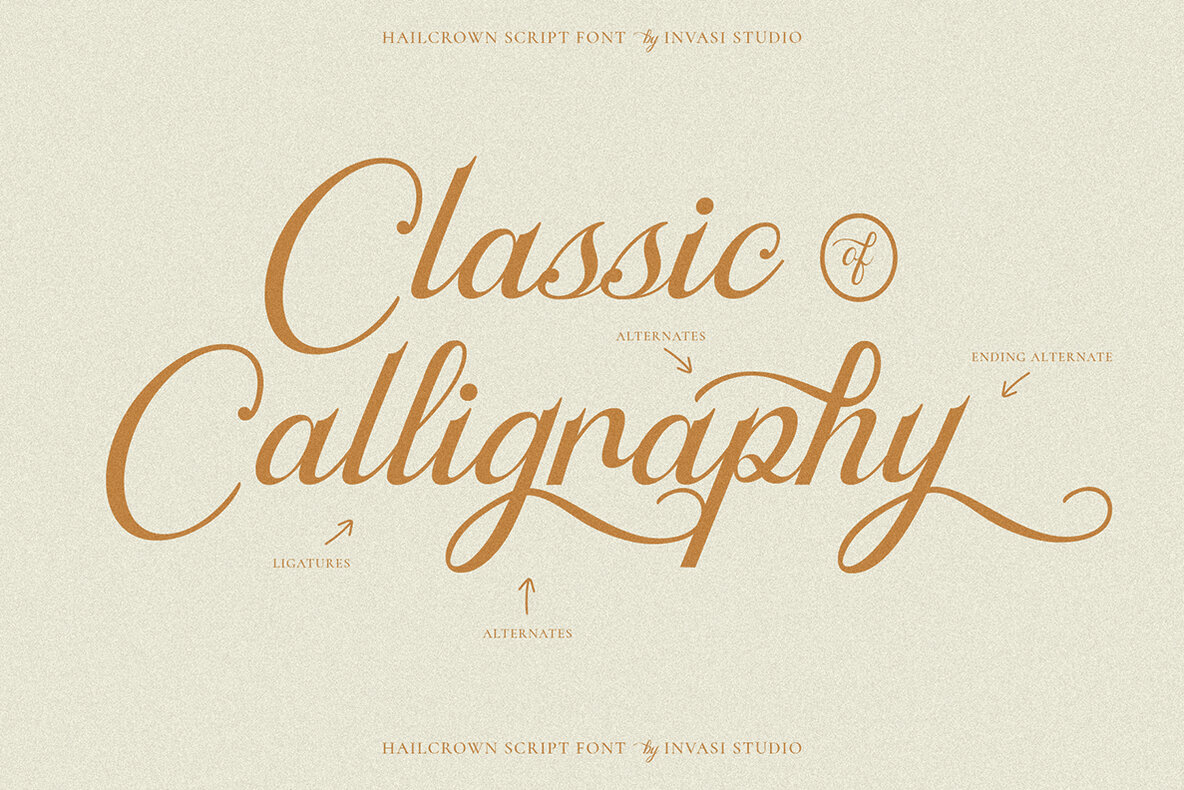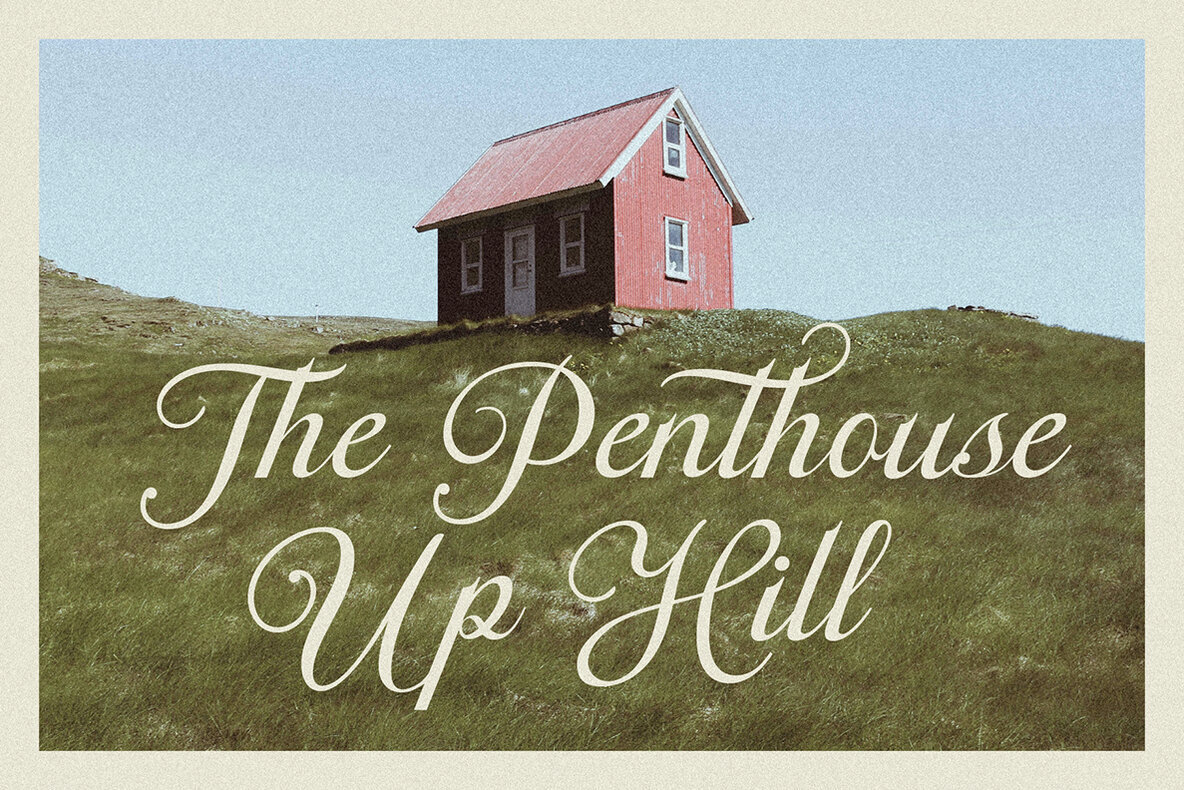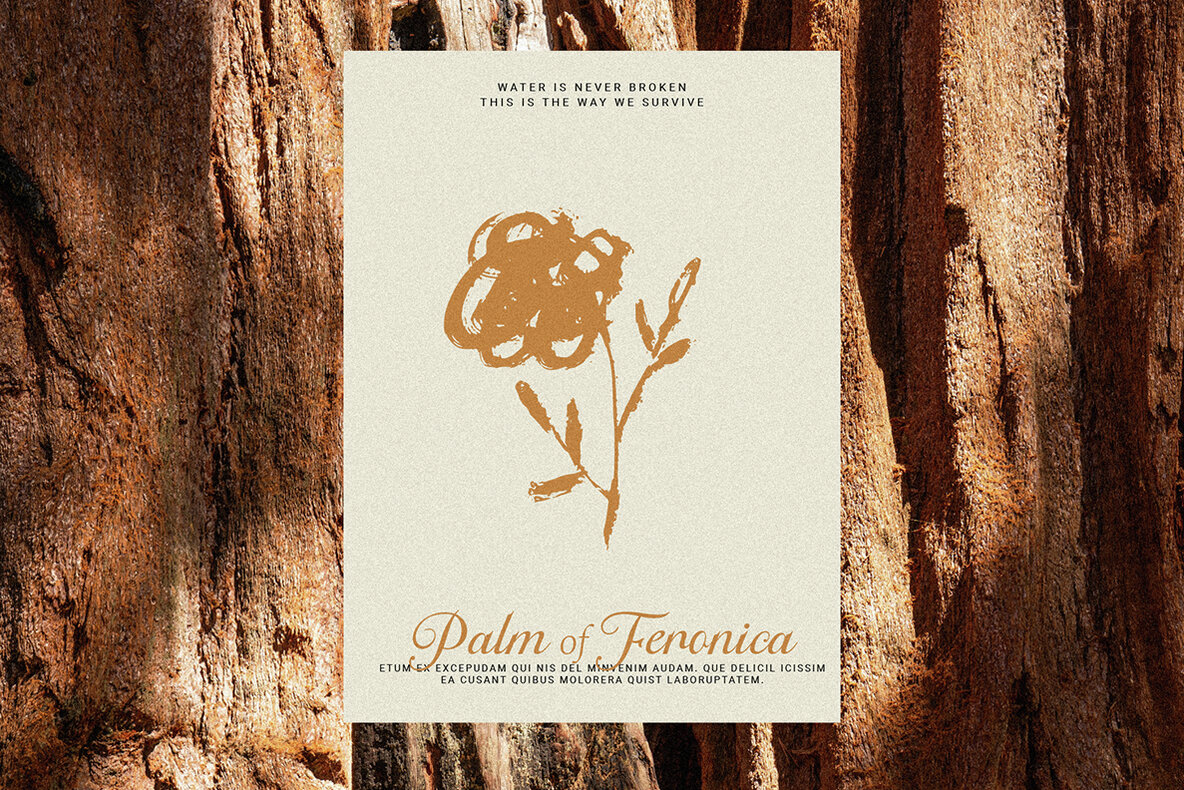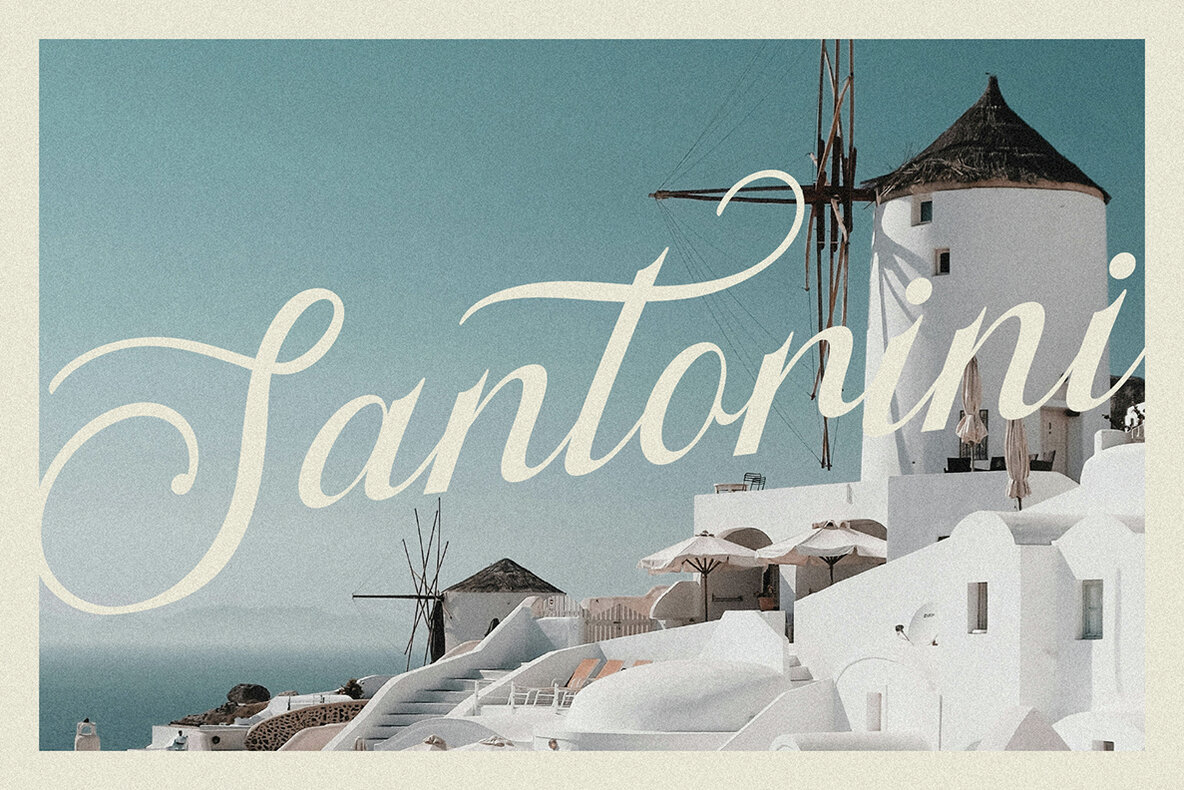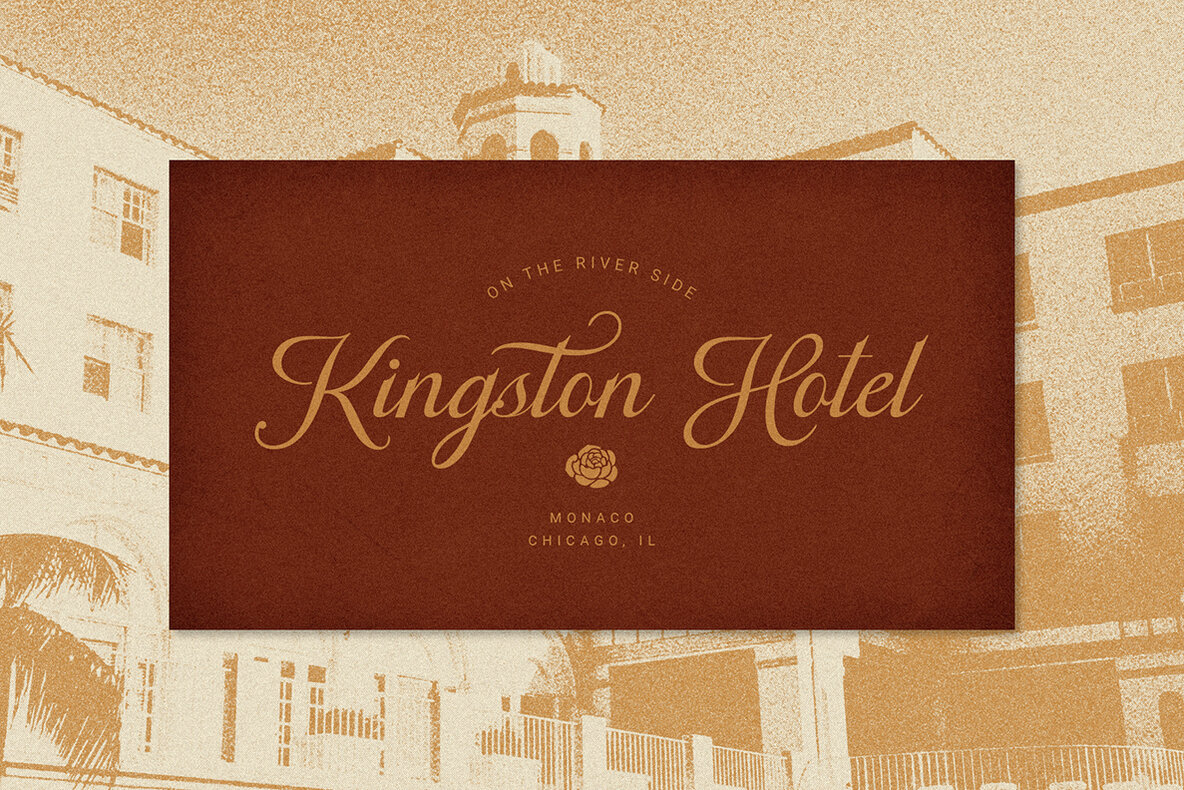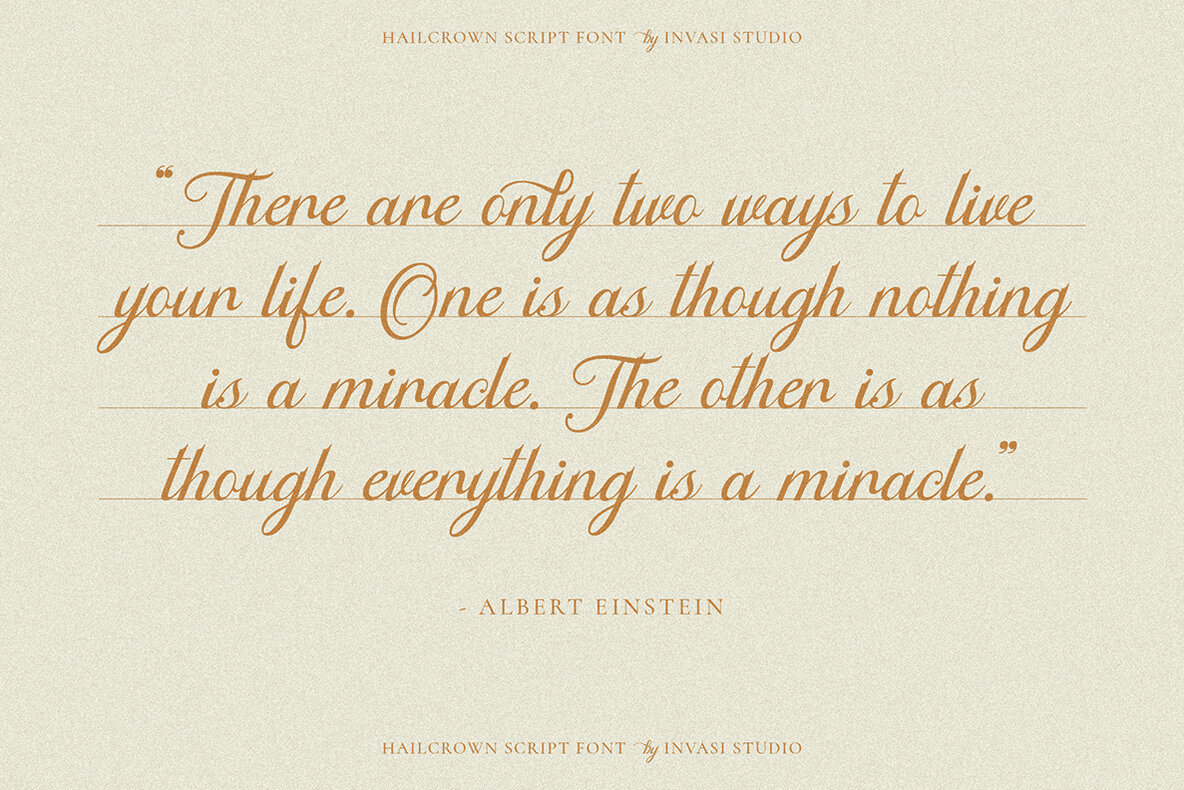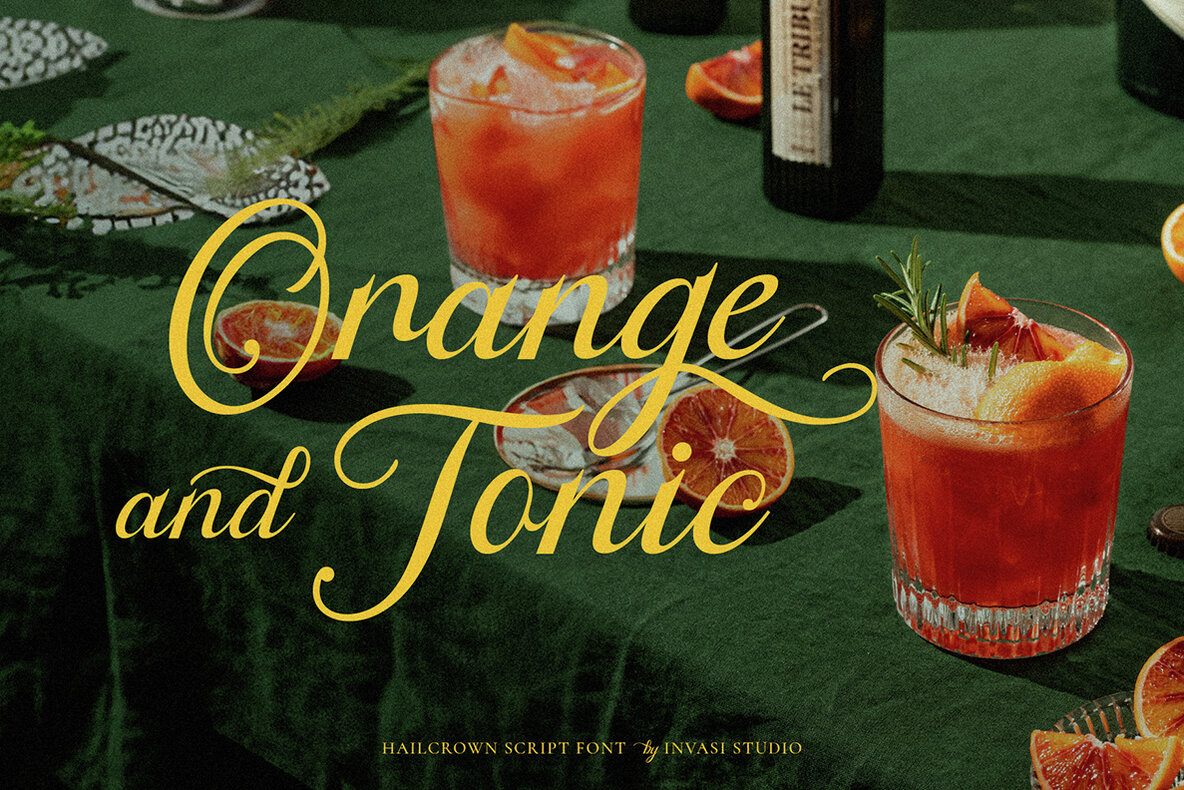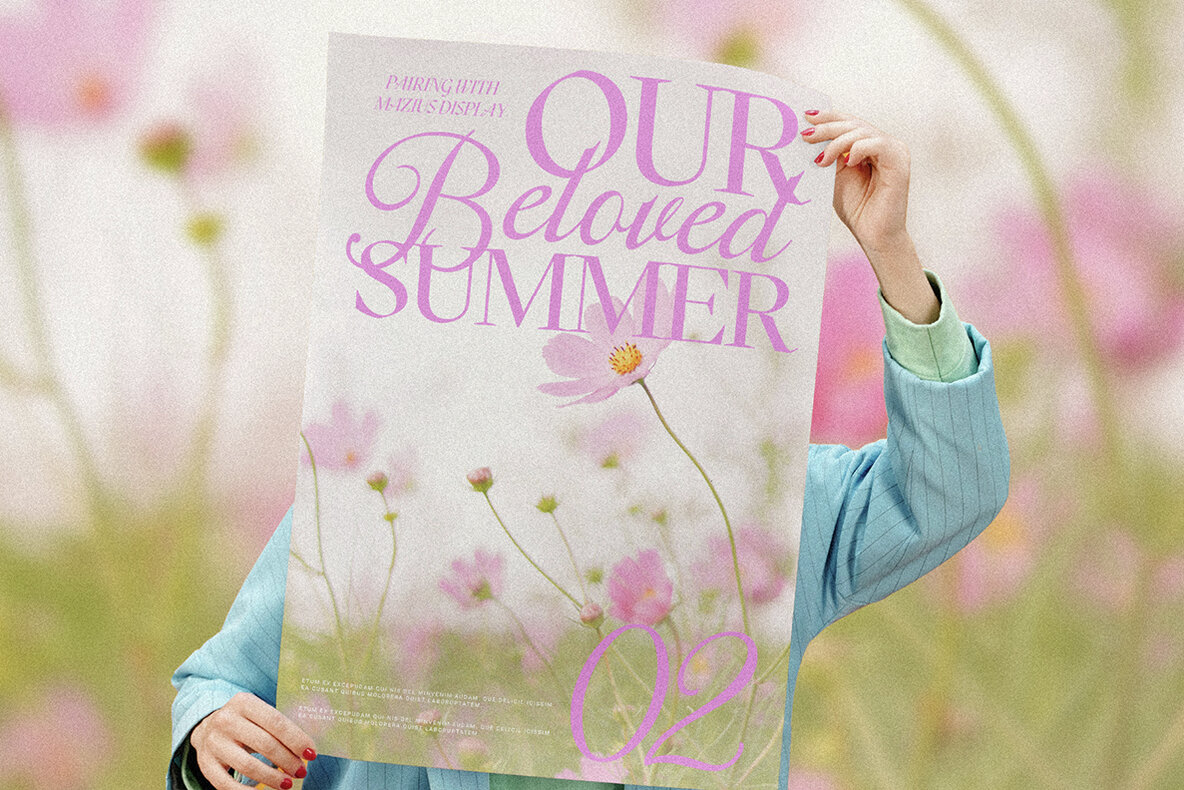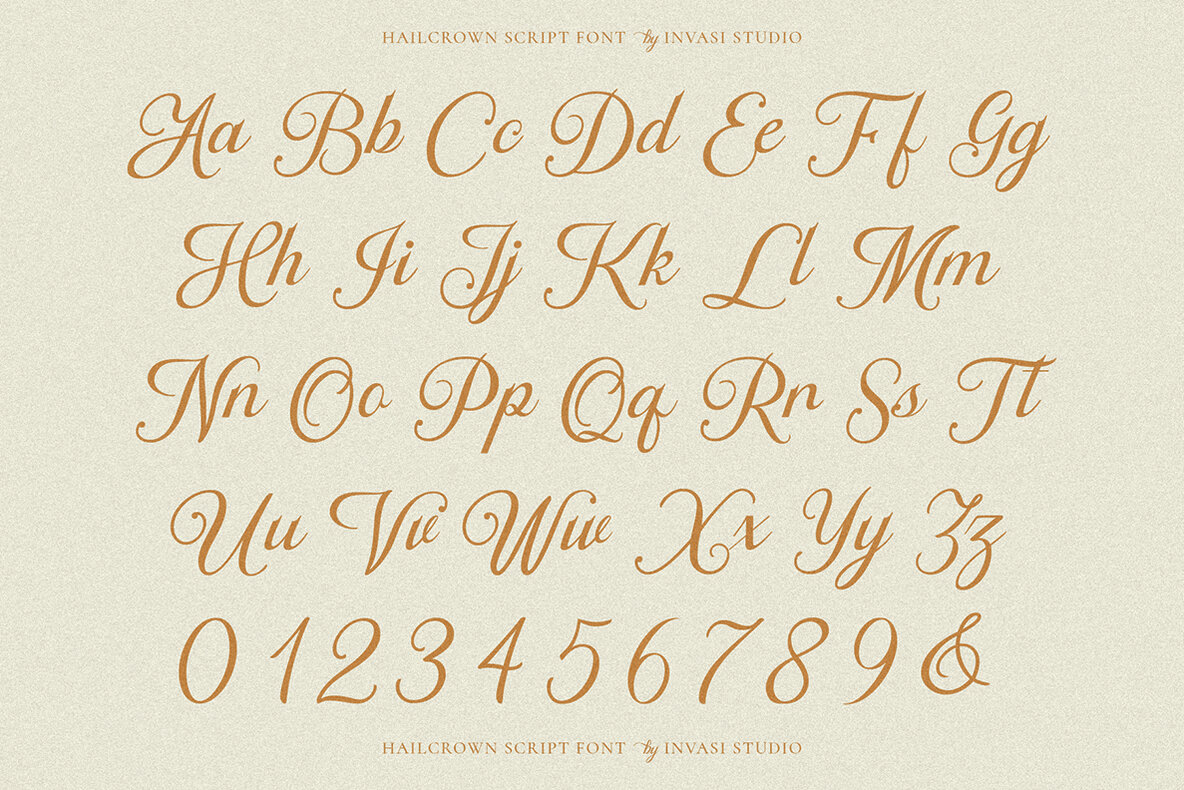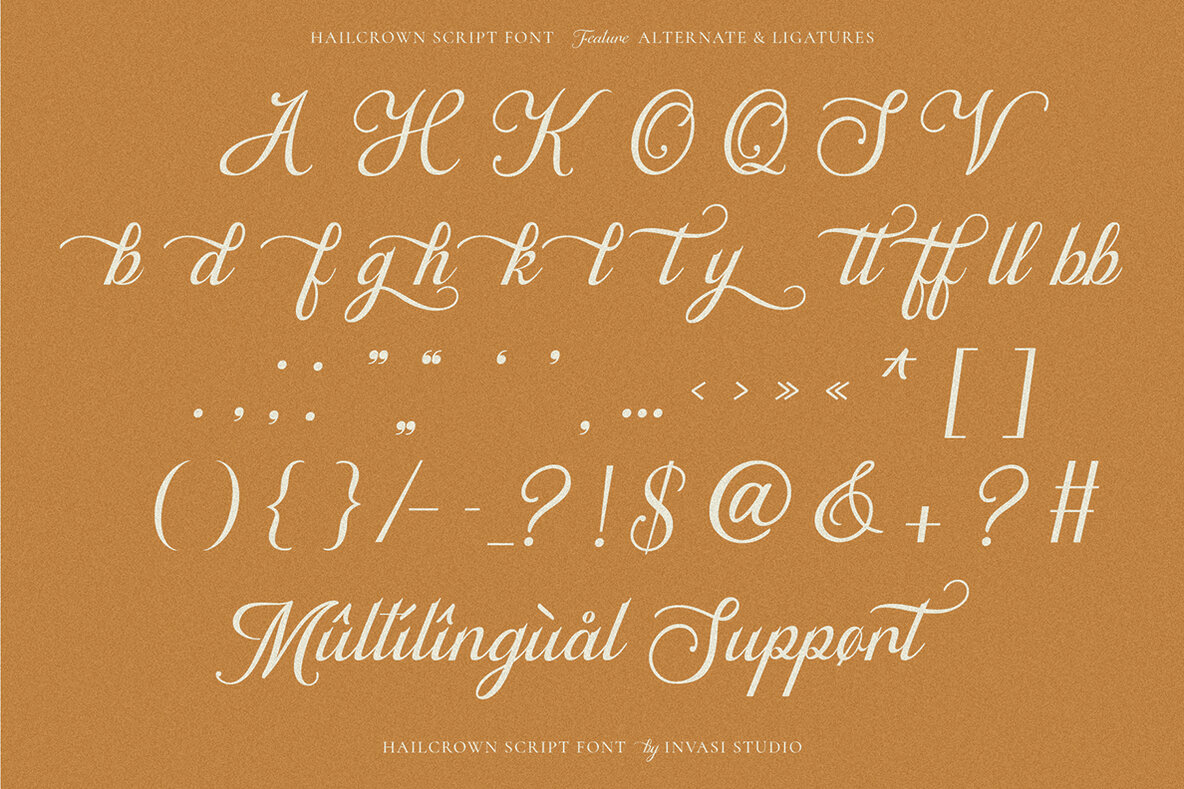
Hailcrown Font
Hailcrown Regular
Immerse yourself in the timeless elegance of Hailcrown Font, a classic calligraphy script that radiates beauty and sophistication. With its distinctive curves marking the beginning and end of each stroke, and the detailed craftsmanship evident in both the uppercase and lowercase engravings, Hailcrown Font brings a touch of refined grace to any project. Beyond its aesthetic appeal, Hailcrown Font is designed to be incredibly versatile and user-friendly, featuring a suite of enhancements including ligatures, alternative characters, and extensive multi-language support. Whether you're creating branding materials, designing logos, crafting wedding invitations, or adding a decorative touch to your projects, Hailcrown Font is the perfect choice to elevate your design work with its elegant charm.